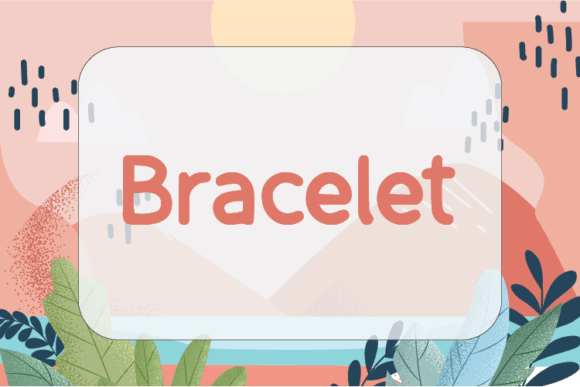
**Introducing Bracelet Font: The Captivating Sans Serif for Unforgettable Expressions**
Step into a world of elegant typography with Bracelet Font, a captivating sans serif masterpiece that will transform your words into works of art. Inspired by the intricacies of jewelry design, this font embodies the perfect balance of sophistication and playfulness.
**Embrace the Art of Expression**
With Bracelet Font, every character is meticulously crafted to evoke a sense of authenticity and grace. Its organic curves and sharp angles dance effortlessly across the page, inviting you to express yourself with style and impact. Whether you're crafting heartfelt quotes, jotting down inspiring notes, or designing products that captivate, this font will lend an irresistible charm to your creations.
**The Perfect Font for Every Occasion**
The versatility of Bracelet Font knows no bounds. Its timeless elegance makes it ideal for quotes that deserve to be cherished, while its understated charm adds a touch of sophistication to notes and journal entries. Unleash your creativity on t-shirts, mugs, and other products, where its unique character will leave a lasting impression.
**Experience the Beauty of Simplicity**
At the heart of Bracelet Font lies a commitment to simplicity. Each character is expertly designed without a single altered node in its indentation, resulting in a font that is both visually intriguing and effortlessly readable. This harmonious balance allows your words to shine through, capturing the essence of your thoughts and emotions.
**Indulge in Typographic Bliss**
With Bracelet Font, you'll discover a world of typographic possibilities. Its intricate details and subtle variations will inspire you to explore new heights of creativity. Fall in love with the art of expression and let this captivating font guide you on a journey of self-discovery and artistic fulfillment.
**Embrace the Power of Words, Transformed by Bracelet Font**
Your words deserve to be presented with grace and impact. With Bracelet Font, you'll elevate your expressions to new heights, capturing hearts and inspiring minds. So dive into the world of typography and let this captivating sans serif font ignite the fire of your creativity.